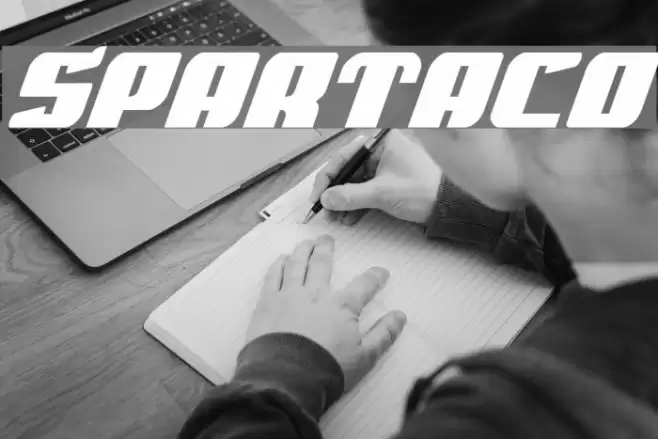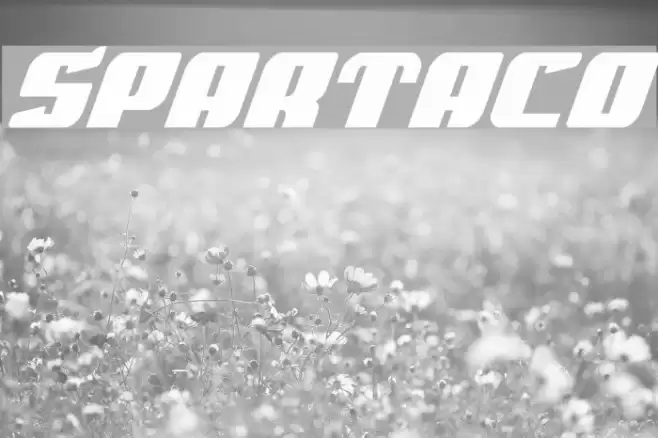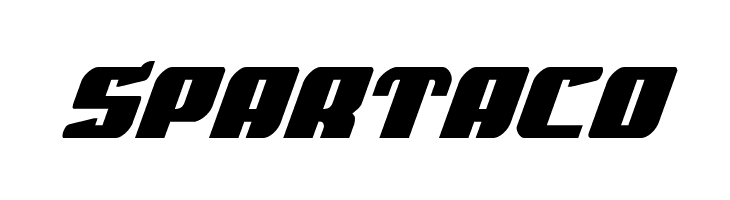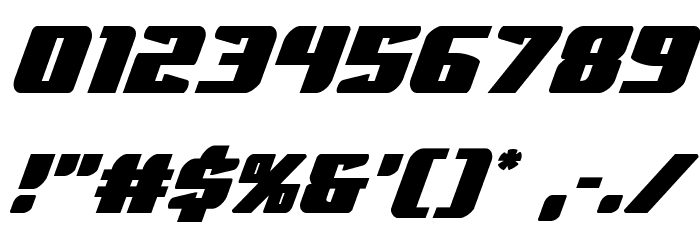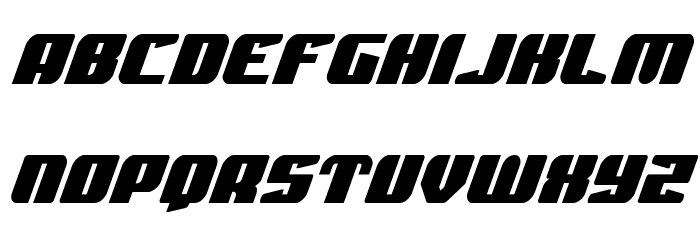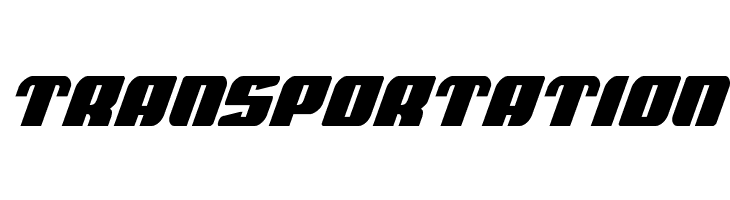
Spartaco Font
Spartaco Description
This font features a bold and dynamic style with a strong presence. The characters are designed with sharp angles and a slight slant, giving them a sense of motion and energy. The uppercase letters are particularly striking, with a blocky, geometric appearance that commands attention. The lowercase letters maintain the same boldness, ensuring consistency throughout. Numbers and special characters are equally robust, making this font versatile for various uses. The overall design is modern and impactful, suitable for projects that require a bold statement.
A bold, dynamic font with sharp angles and a modern, energetic style from Sci-fi fonts.
- Proposed Projects: Ideal for sports branding, action movie posters, dynamic logos, and eye-catching headlines.